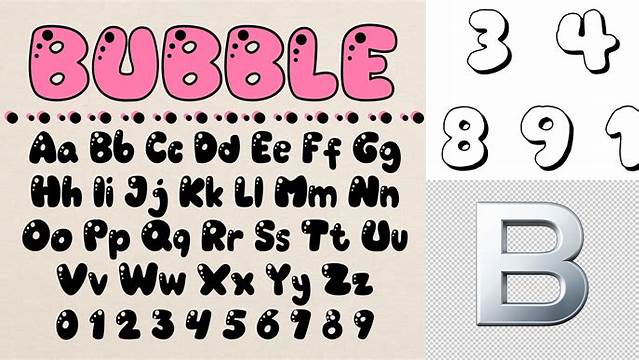
Bubble Number Fonts: A Comprehensive Guide
Introduction to Number Fonts
Hey guys! Ever wondered about the unsung heroes of design? Yes, I'm talking about number fonts! These numerical typefaces play a crucial role in how we perceive data, dates, prices, and pretty much anything that involves numbers. From the sleek digits on your digital clock to the elegant figures in a financial report, number fonts are everywhere, silently influencing our understanding and experience. In this article, we'll dive deep into the world of number fonts, exploring their history, significance, different styles, and how to choose the perfect one for your project. So, buckle up and get ready to geek out on typography!
When we talk about number fonts, we're not just referring to a single style or design. The world of numerical typography is incredibly diverse, offering a range of options to suit various needs and aesthetics. Numbers, just like letters, have their own unique personalities and can convey different emotions and messages. Think about the difference between the bold, blocky numbers on a sports jersey and the delicate, flowing numerals in a wedding invitation. Each style communicates something different, and understanding these nuances is key to effective design. Moreover, the importance of number fonts extends beyond mere aesthetics. In many contexts, clarity and legibility are paramount. Imagine trying to decipher a complex financial document where the numbers are poorly designed or difficult to read. The right number font can significantly improve readability and prevent errors, making it an essential consideration for any project that involves numerical data. So, whether you're designing a website, creating a presentation, or crafting a marketing campaign, paying attention to your number fonts is crucial. They are the silent communicators that can make or break your message.
The Significance of Typography
Typography, my friends, is more than just picking a pretty font. It's the art and technique of arranging type to make written language legible, readable, and appealing. It sets the tone, communicates the message, and can even evoke emotions. The right typeface can elevate your design, while the wrong one can make your content look amateurish and difficult to read. Now, when we talk about the significance of typography, it's not just about letters; numbers are equally important. Numbers are the backbone of data, statistics, and information. They're used in everything from financial reports to scientific papers, and their clarity is crucial. A well-chosen number font can make data easier to understand, while a poorly chosen one can lead to confusion and misinterpretation. Think about the last time you saw a poorly designed infographic. Chances are, the numbers were difficult to read, making it hard to grasp the key takeaways. That's the power – and the potential pitfall – of typography.
Consider, for instance, the impact of typography on branding. A company's logo and marketing materials are often the first things that potential customers see. The font used in these materials can create a lasting impression, conveying the brand's personality and values. A sleek, modern font might suggest innovation and cutting-edge technology, while a classic, serif font might evoke a sense of tradition and reliability. The same principles apply to numbers. A bold, sans-serif number font might be perfect for a sports brand, conveying energy and excitement, while a delicate, script-style number font might be more appropriate for a luxury brand, suggesting elegance and sophistication. Furthermore, typography plays a crucial role in user experience. On websites and apps, clear and legible fonts are essential for ensuring that users can easily navigate the interface and find the information they need. This is especially true for numbers. Think about online banking, for example. Users need to be able to quickly and accurately read account balances, transaction histories, and other financial data. A well-chosen number font can make this process smoother and less prone to errors. In short, typography is a powerful tool that can influence how we perceive and interact with information. By understanding the principles of typography and choosing the right fonts for your projects, you can create designs that are not only visually appealing but also effective in communicating your message.
Different Styles of Number Fonts
Okay, let's get into the fun part – the different styles of number fonts! Just like their letter counterparts, number fonts come in a vast array of styles, each with its unique personality and characteristics. Understanding these styles is crucial for choosing the right font for your project. We can broadly categorize number fonts into several key styles: serif, sans-serif, monospace, and decorative.
Serif fonts, with their little feet or strokes at the ends of the characters, are often associated with tradition, elegance, and readability. Think of classic typefaces like Times New Roman or Garamond. Serif number fonts tend to have a more formal and sophisticated look, making them a great choice for projects that require a touch of class. They are commonly used in print materials, such as books, magazines, and newspapers, where readability is paramount. In contrast, sans-serif fonts, which lack those little feet, have a cleaner, more modern aesthetic. Typefaces like Arial, Helvetica, and Futura fall into this category. Sans-serif number fonts are often preferred for digital applications, such as websites and apps, where their simplicity and clarity shine. They are also a popular choice for branding and advertising, where a contemporary look is desired. Monospace fonts, where each character takes up the same amount of horizontal space, have a distinct, technical feel. Courier New is a classic example of a monospace font. Monospace number fonts are commonly used in coding, programming, and other technical contexts, where consistent spacing is essential. They can also be used for stylistic effect, such as in retro or vintage designs. Finally, decorative fonts are the wildcards of the font world. They encompass a wide range of styles, from script and handwritten fonts to display and novelty fonts. Decorative number fonts are best used sparingly, as they can be difficult to read in large blocks of text. However, they can be a great way to add personality and flair to your designs, especially in headings, logos, and other visual elements. When choosing a number font, it's important to consider the overall tone and message of your project. Are you aiming for a formal, classic look? A modern, minimalist aesthetic? Or something playful and creative? By understanding the different styles of number fonts and how they communicate, you can make informed decisions and create designs that truly stand out.
Choosing the Perfect Number Font
Choosing the perfect number font can feel like a daunting task, especially with so many options available. But don't worry, guys! I'm here to guide you through the process. The key is to consider your project's specific needs and the message you want to convey. Start by thinking about the context in which the numbers will be used. Are they part of a financial report? A website design? A marketing campaign? The context will help you narrow down your options. For example, if you're designing a financial report, clarity and legibility are paramount. You'll want to choose a font that is easy to read, even in small sizes. Serif fonts, with their classic and formal look, are often a good choice for this type of project. On the other hand, if you're designing a website or app, you might opt for a sans-serif font, which tends to be more legible on screens. Sans-serif fonts also have a modern and clean aesthetic, which can be a good fit for many digital applications.
Another important factor to consider is the overall tone and style of your project. What kind of message do you want to communicate? A bold, sans-serif number font might be perfect for a sports-related project, conveying energy and excitement. A delicate, script-style number font might be more appropriate for a wedding invitation, suggesting elegance and romance. The font you choose should complement the other design elements and reinforce the overall message. Don't be afraid to experiment with different fonts and see how they look in your design. Try pairing different number fonts with different letter fonts to see what combinations work best. You can also try using different font weights and styles, such as bold, italic, and condensed, to add visual interest and hierarchy. Remember, the goal is to create a design that is both visually appealing and easy to read. Legibility is crucial, especially when it comes to numbers. Make sure the numbers are clear and distinct, even in small sizes. Avoid fonts that are too decorative or stylized, as they can be difficult to decipher. Finally, consider the technical aspects of your font choice. Will the font be used on a website? If so, you'll need to make sure it's a web-safe font or that you have the proper licensing to use it. Will the font be used in a print project? If so, you'll need to make sure it's available in the correct format and that it will reproduce well in print. By considering all these factors, you can choose the perfect number font for your project and create designs that are both beautiful and effective. So go ahead, guys, and let your creativity flow!
So, there you have it, guys! A whirlwind tour of the wonderful world of number fonts. We've explored their history, significance, different styles, and how to choose the perfect one for your project. Hopefully, you now have a newfound appreciation for these unsung heroes of design. Number fonts may seem like a small detail, but they can have a big impact on the overall look and feel of your designs. By paying attention to your number fonts, you can create designs that are not only visually appealing but also effective in communicating your message. Remember, the right number font can make data easier to understand, add personality to your designs, and even evoke emotions. So, the next time you're working on a project that involves numbers, take a moment to consider your font choices. It's a small detail that can make a big difference. Happy designing, guys! And keep those numbers looking sharp!